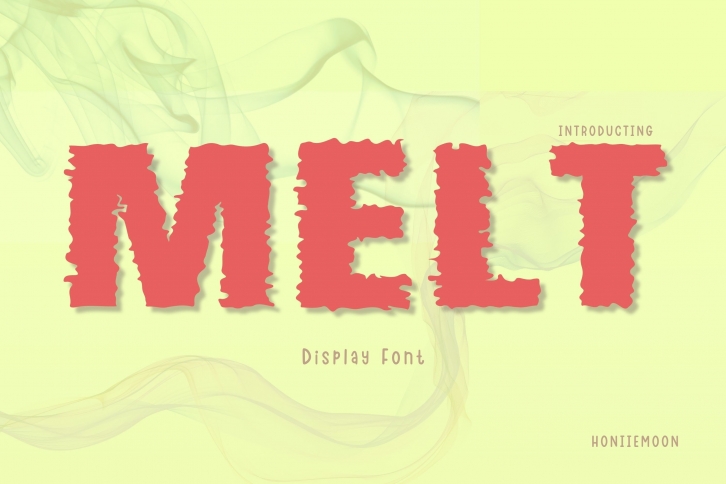
Melt is a cool and fun display font. It looks cute and jolly, and it will enhance each of your designs. The only limit is your imagination. Add this colorful and bold display font to each of your creative ideas, and notice how it makes them come alive!